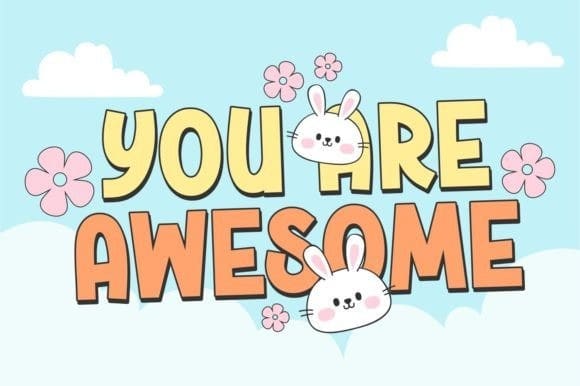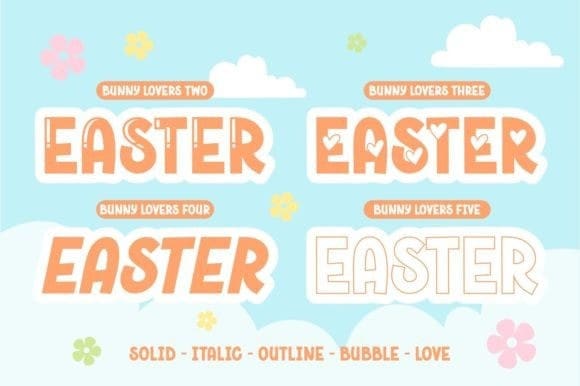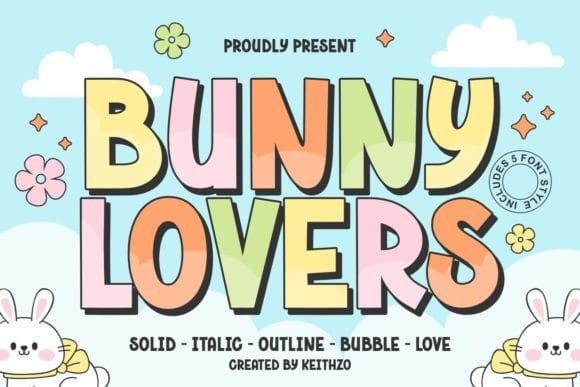
Bunny Lovers Font
Bunny Lovers Font is a playful and lively display typeface that radiates fun and energy. With its bouncy letterforms and dynamic strokes, it captures the essence of retro grooviness. Ideal for headlines, posters, and branding projects,